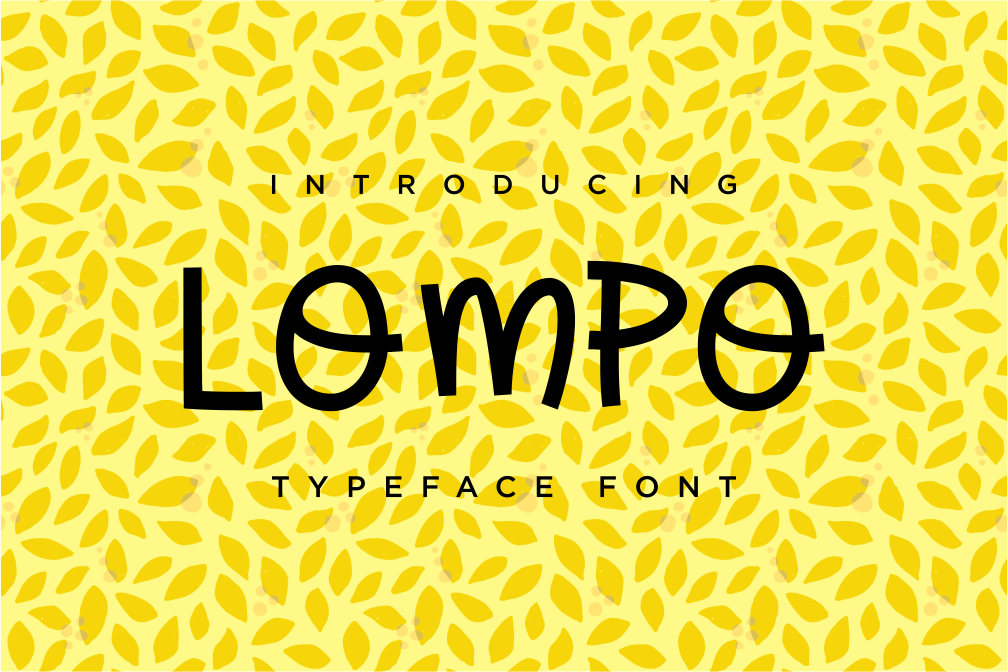
LOMPO Font
LOMPO is a tasty new font for all of your fun projects! It's a mixed-case font (uppercase and lowercase are all the same height) so you can mix and match letters within a word.